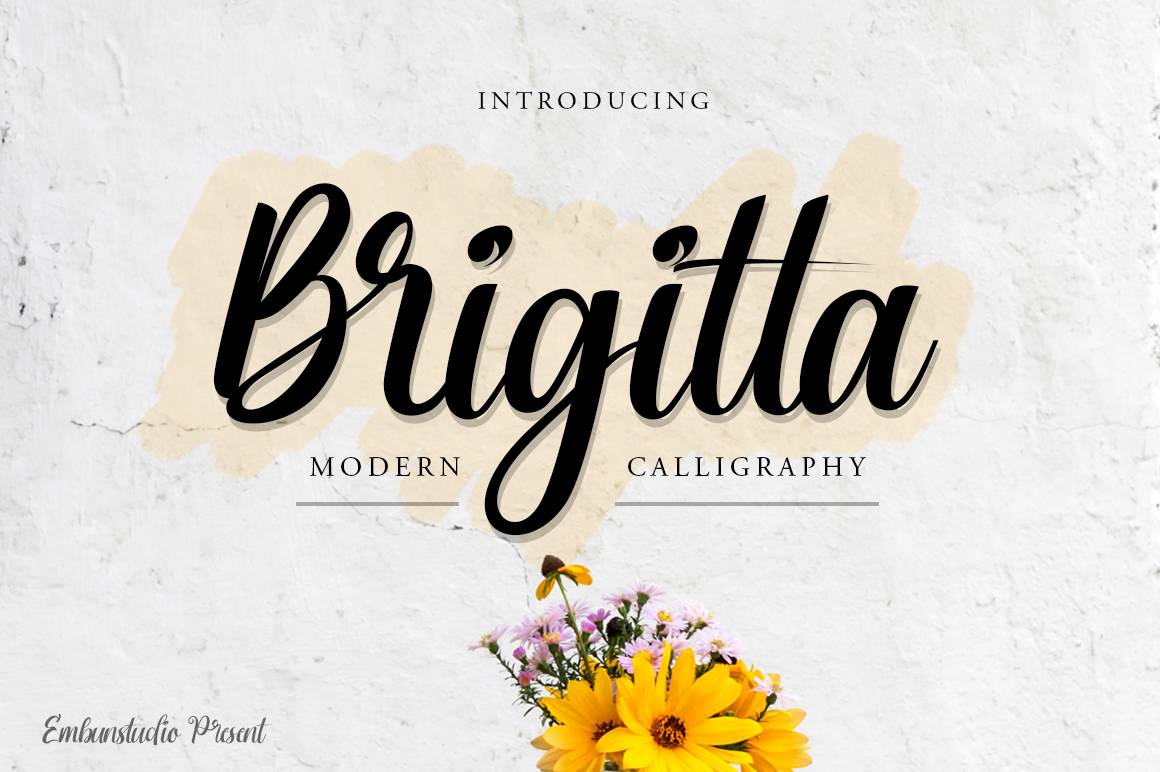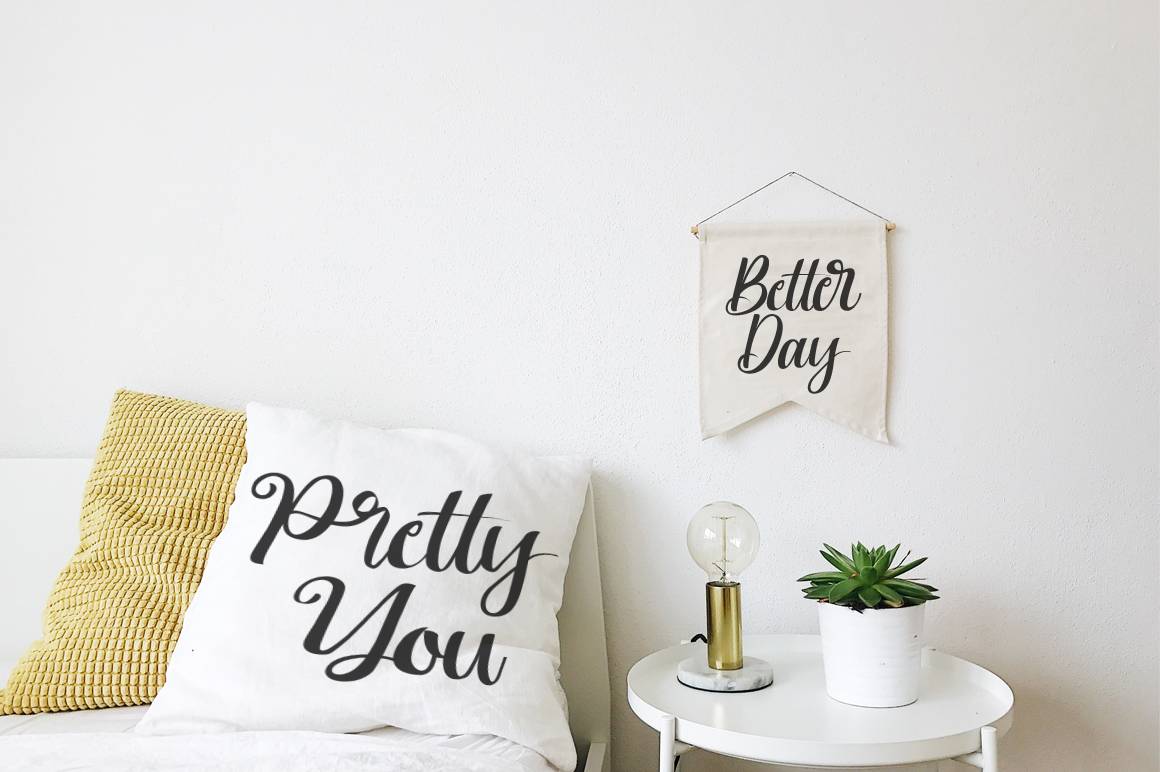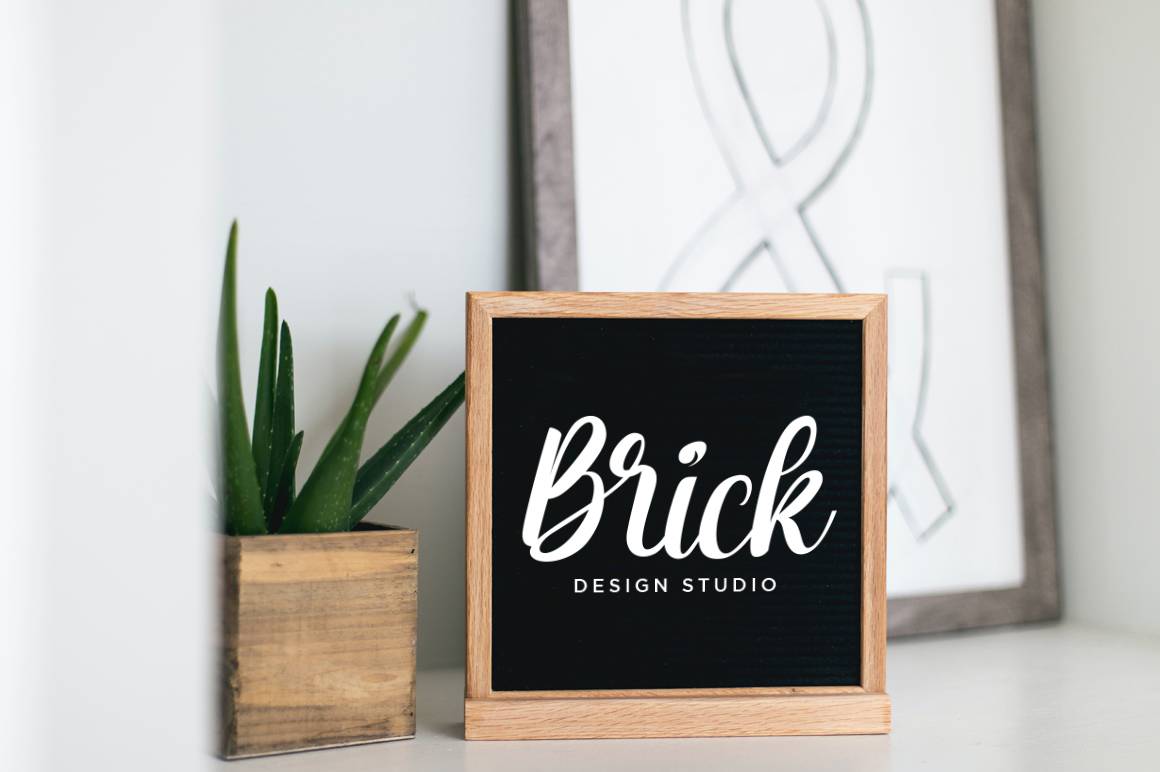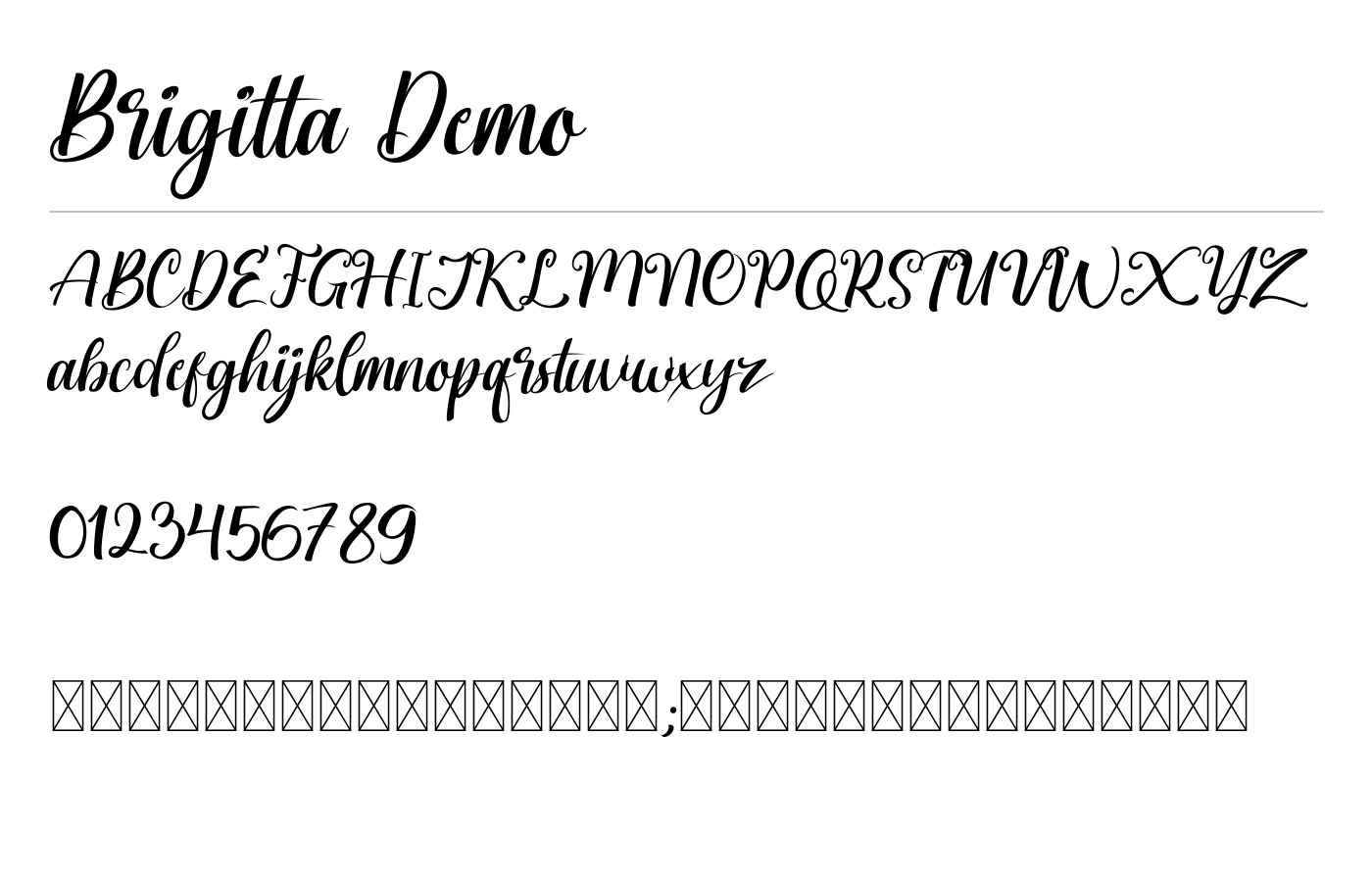
Brigitta Script is an elegant, flowing script font with a stylish, handwritten charm. Its smooth, medium-weight strokes and delicate swashes convey a modern yet classic feel, making it perfect for wedding invitations, branding, and sophisticated design projects where a personal, graceful touch is desired. The font’s readable letterforms and refined curves lend it a luxurious and inviting personality that works beautifully in both headlines and decorative text.
Brigitta Script Font
About Brigitta Script Font
| Font family | Brigitta Script Font |